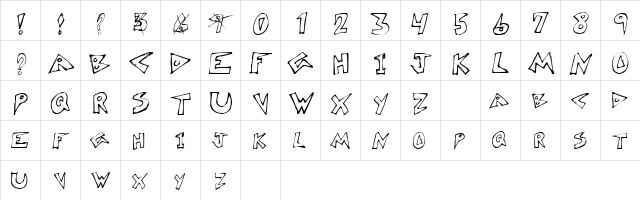
4amDiner Regular Free Font
4amDiner Regular
Design Context for 4amDiner
4amDiner is a composed and adaptable typeface that performs quietly and consistently across a wide range of design contexts.
Pro Tip: Use 4amDiner in both headline and body roles to test its range before committing to a single application.